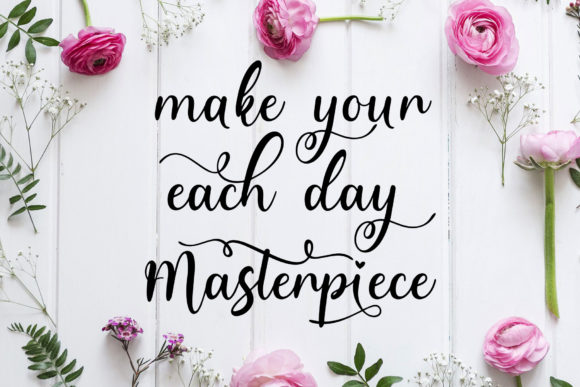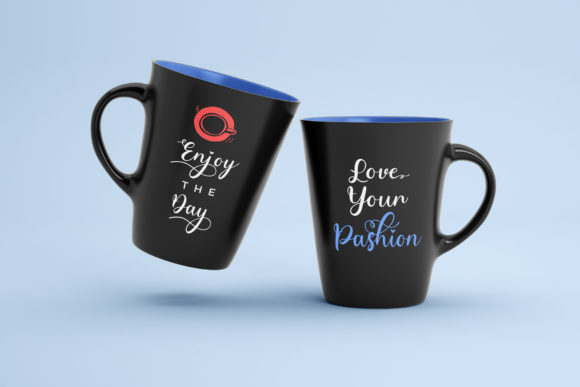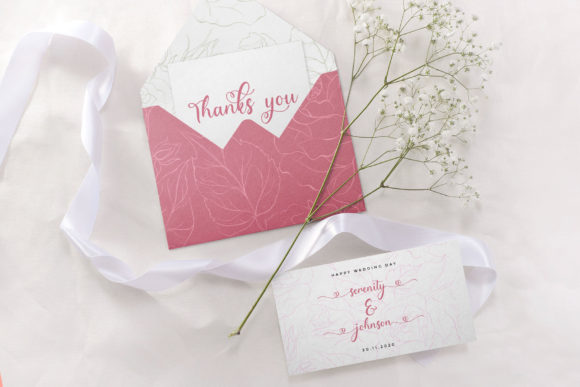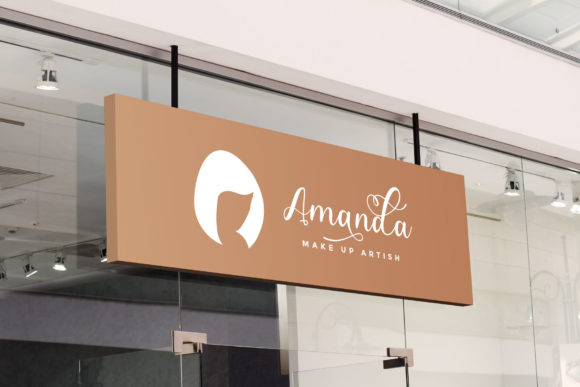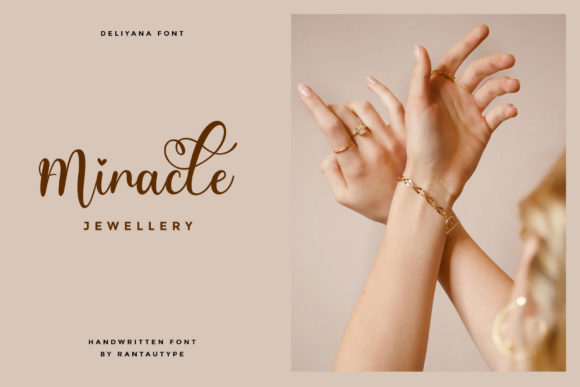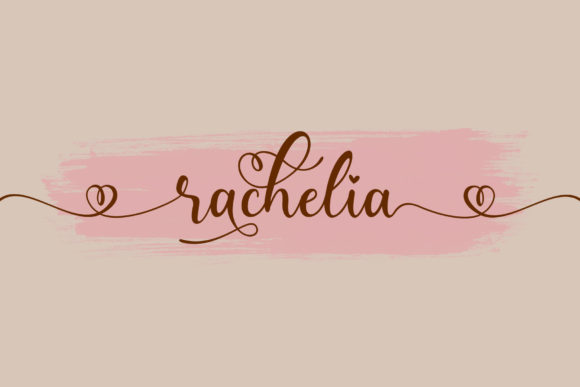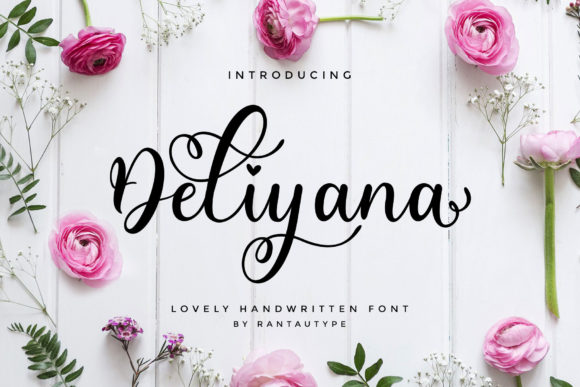
Introducing Deliyana Font: The Epitome of Romantic Elegance
In the world of typography, fonts play a pivotal role in conveying emotions and setting the tone for designs. For those seeking a touch of romance and elegance, the Deliyana Font is an exquisite choice. This beautifully crafted script font is not only a delight to the eyes but also a versatile tool for designers and crafters looking to infuse their projects with a sense of joy and freedom.
What Makes Deliyana Font Stand Out?
Deliyana is more than just a font; it’s an experience. It embodies the essence of romance and elegance, making it perfect for projects that demand a sophisticated touch. Whether you’re working on wedding invitations, branding materials, or any creative project that requires a personal and unique feel, Deliyana is sure to impress.
One of the standout features of Deliyana Font is its PUA (Private Use Area) encoding. This means that accessing all the glyphs and swashes is incredibly straightforward. Designers can easily navigate through the font’s extensive range of characters and decorative elements, allowing for a high degree of customization and creativity. This feature is particularly beneficial for those who want to experiment with different styles and effects without the hassle of complicated font management.
Adding a Distinct Touch to Your Designs
Deliyana Font is designed to bring a distinct and unique touch to your designs. Its elegant script and flowing lines can transform any ordinary project into something extraordinary. The font’s ability to convey joy and freedom makes it an excellent choice for projects that aim to evoke positive emotions. Whether you’re creating bespoke wedding stationery, elegant branding for a luxury product, or simply looking to add some flair to your digital content, Deliyana can help you achieve your design goals with style.
Deliyana Font is a versatile tool that caters to the needs of both designers and crafters. For professional designers, it offers a sophisticated and elegant solution for clients looking for a unique typographic approach. For crafters, especially those involved in DIY projects, scrapbooking, or handcrafted goods, Deliyana provides an accessible way to add a professional and polished look to their creations.
Tips for Using Deliyana Font Effectively
To make the most out of Deliyana Font, consider the following tips:
- Pair it with Simplicity: Deliyana’s elegance shines best when paired with simple and clean design elements. This contrast can help highlight the font’s beauty and prevent your design from looking cluttered.
- Experiment with Swashes: Take advantage of the font’s PUA encoding to explore different swashes and glyphs. This can add a unique touch to your text and make it stand out.
- Consider the Context: While Deliyana is versatile, it’s essential to consider the context in which it will be used. Ensure that the font aligns with the overall theme and tone of your project.
Deliyana Font is a romantic and elegant script font that offers a unique blend of sophistication and creativity. Its PUA encoding makes it easy to use and customize, while its beautiful design ensures that your projects stand out. Whether you’re a designer looking for a new typographic solution or a crafter aiming to elevate your handmade goods, Deliyana is an excellent choice. Embrace the joy and freedom that Deliyana brings, and watch your designs transform with its elegant charm.
In the realm of typography, Deliyana Font is not just a tool; it’s a means to convey emotion, elegance, and individuality. With its extensive features and versatile application, it’s poised to become a favorite among designers and crafters alike. So, dive into the world of Deliyana, and let its romantic elegance redefine your creative projects.